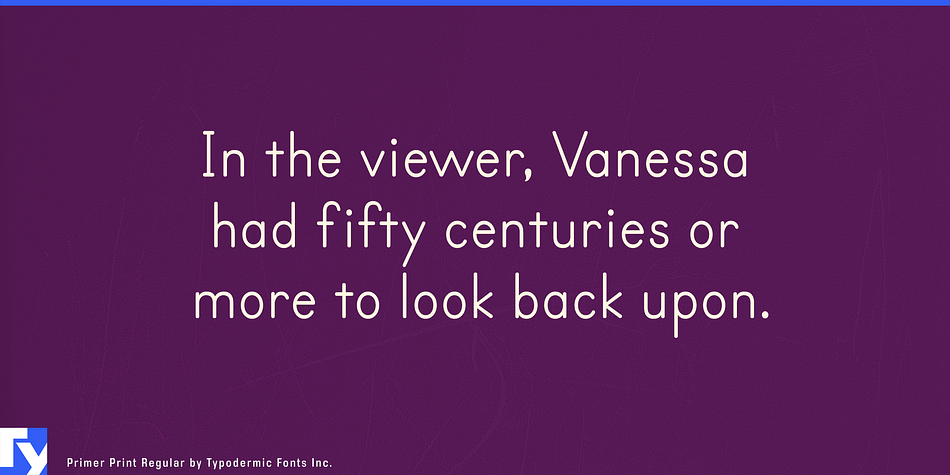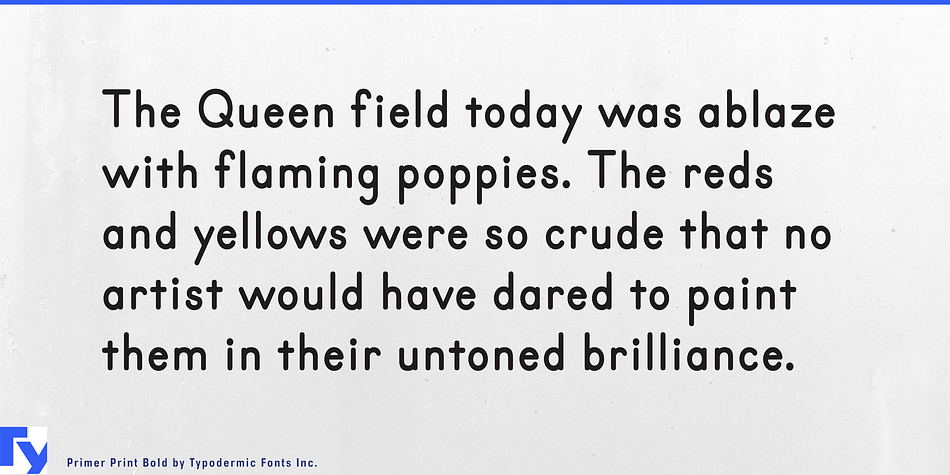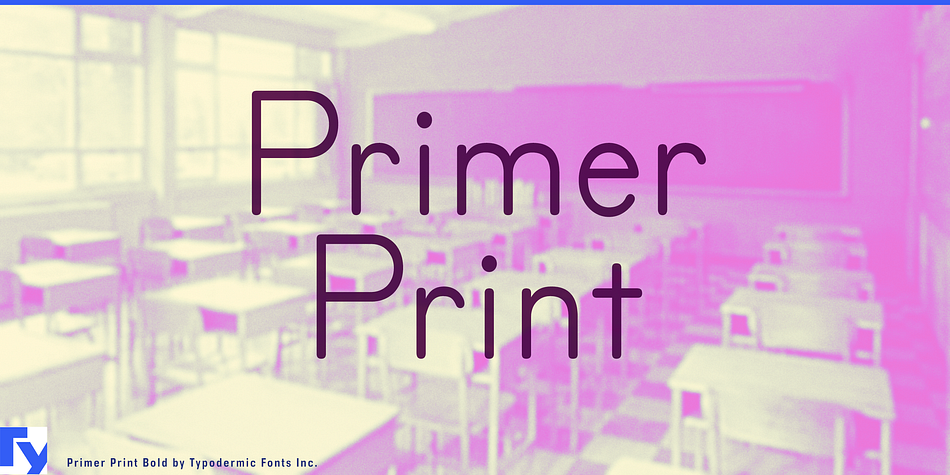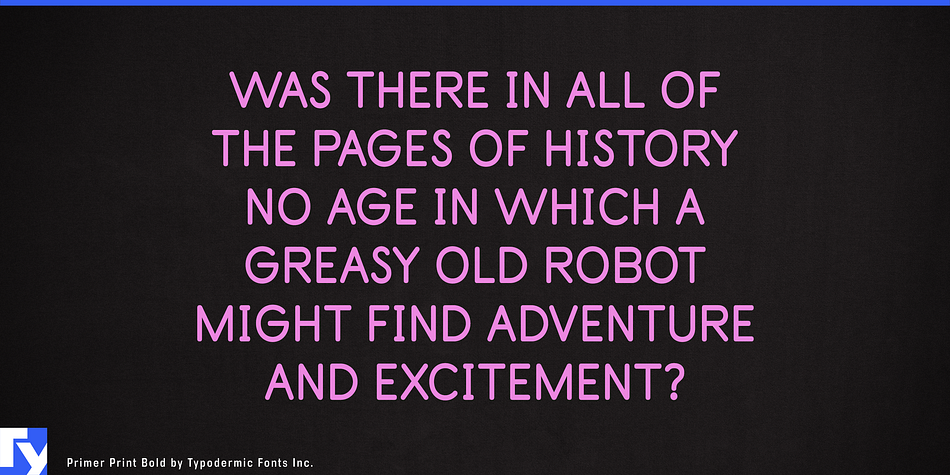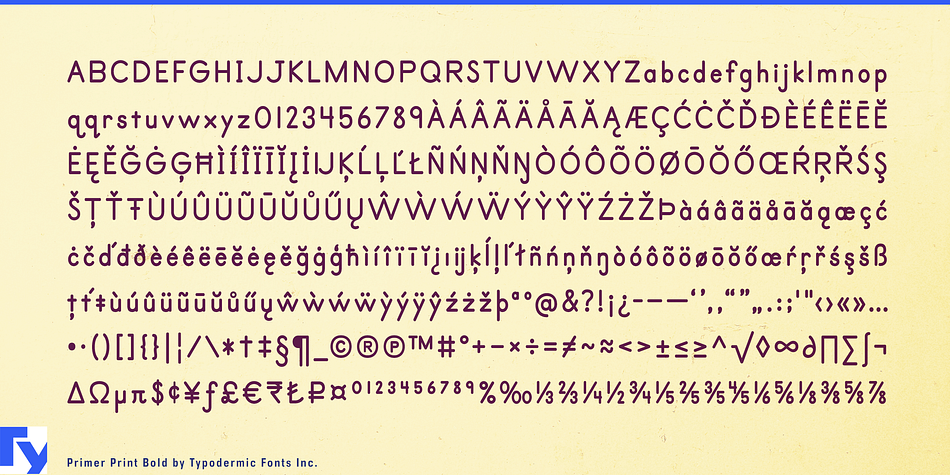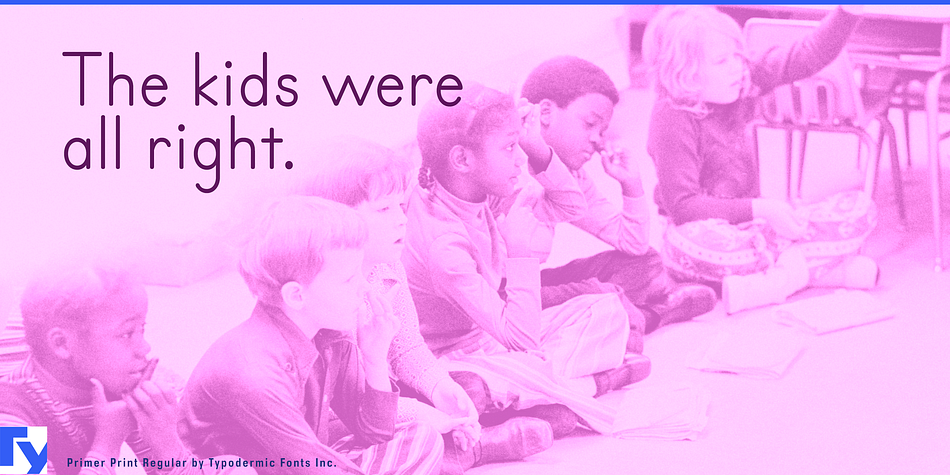
Primer Print is a sans serif font family. This typeface has two styles and was published by Typodermic Fonts Inc.
Primer is a font inspired by teaching materials for printing. In OpenType savvy applications, you can use the “stylistic alternates” feature to access a serifed J and a q with a sharp hook.